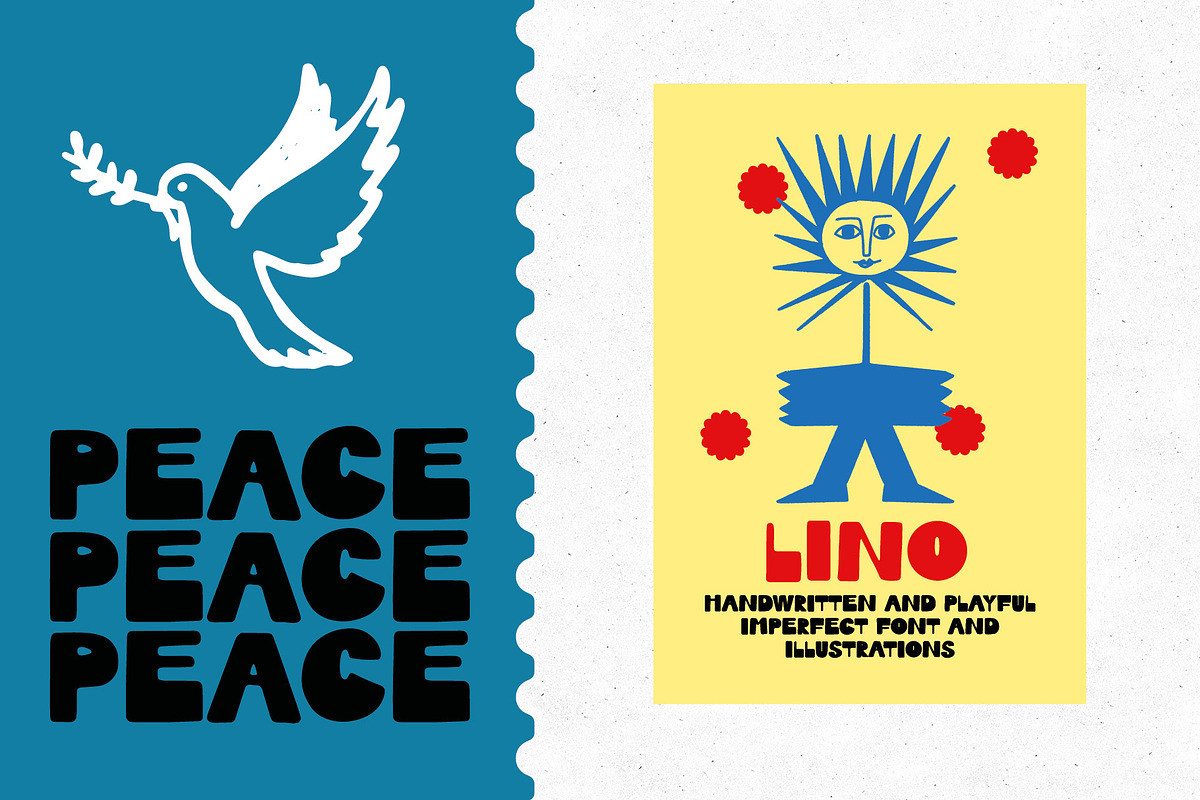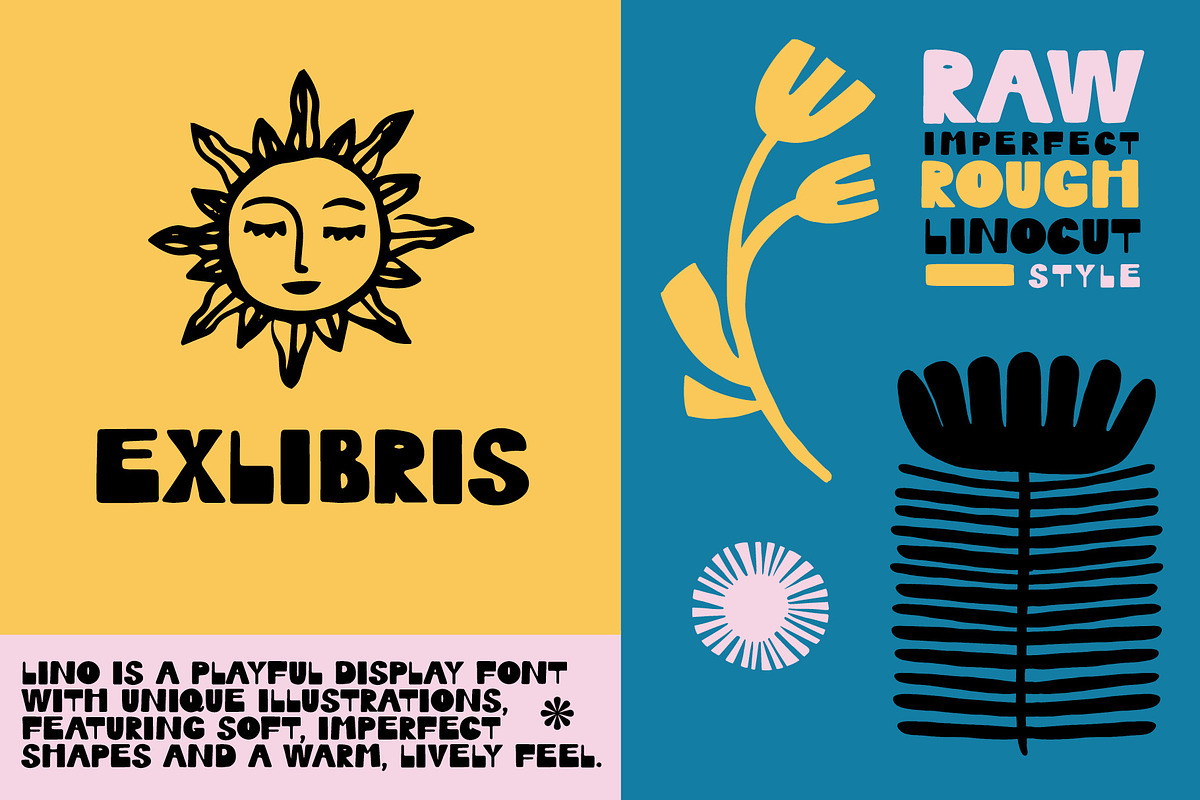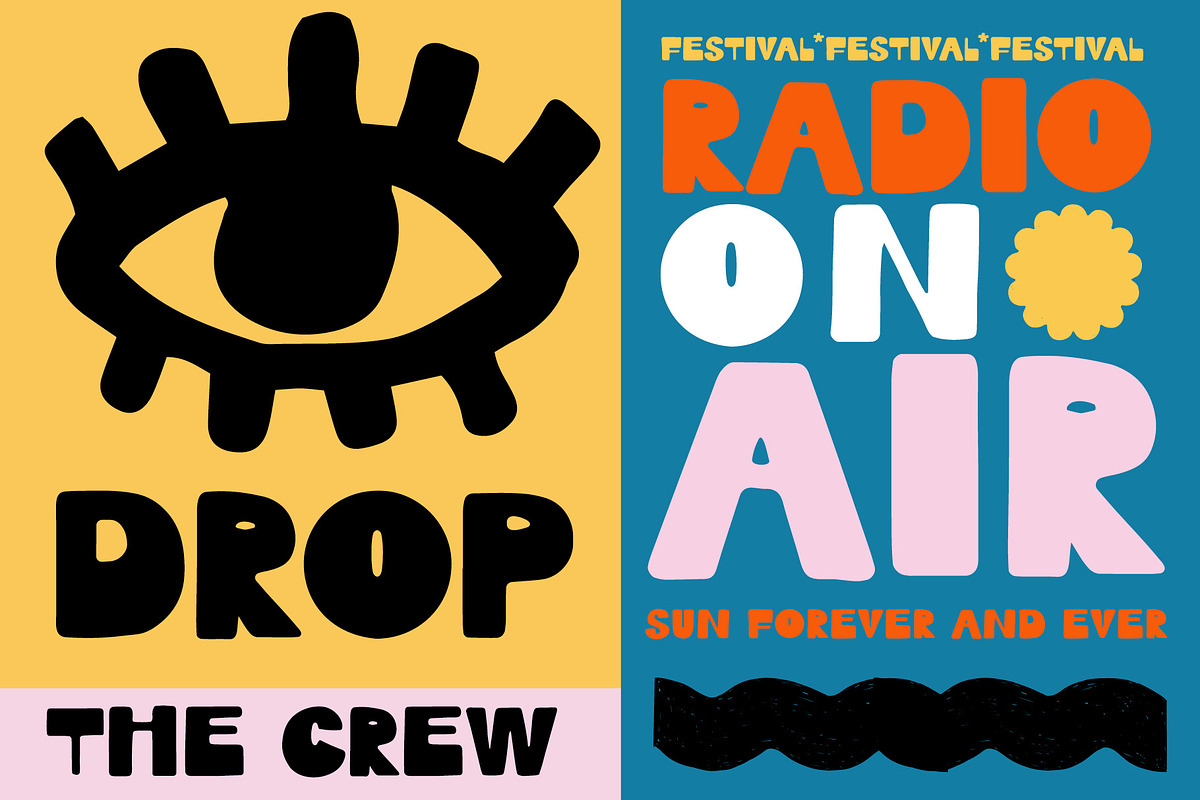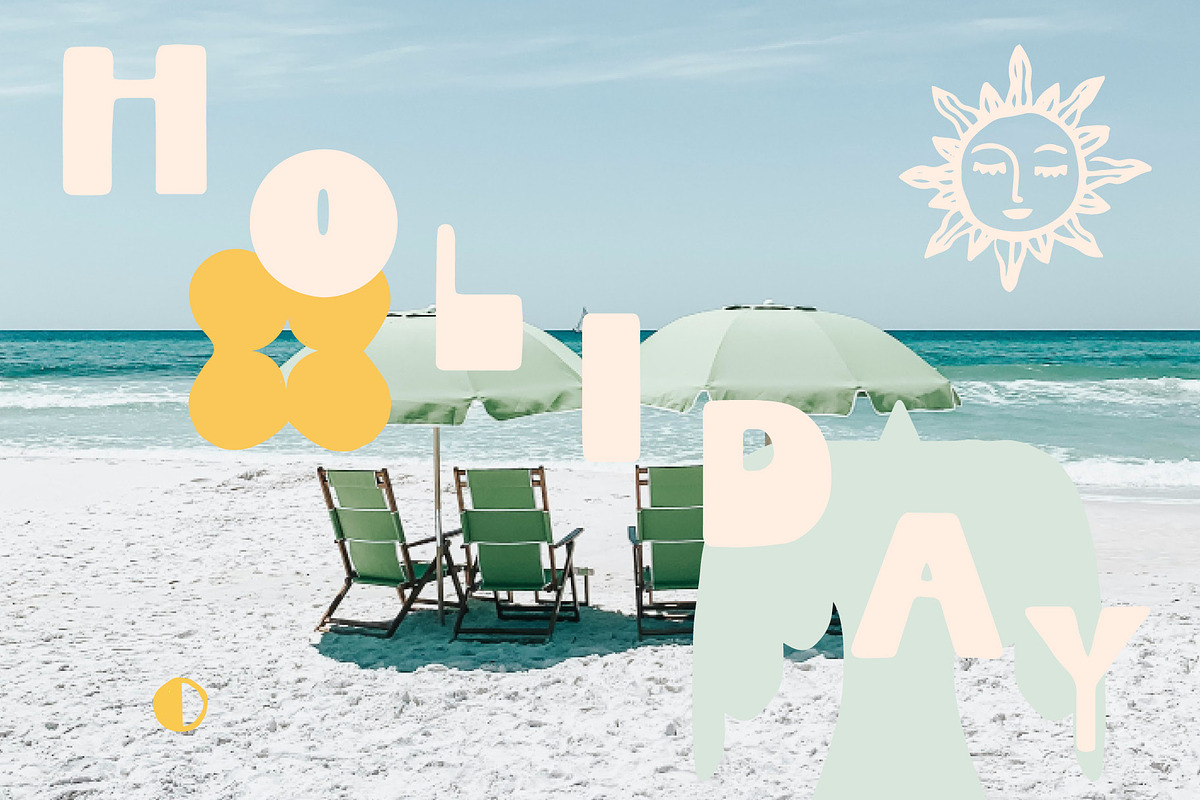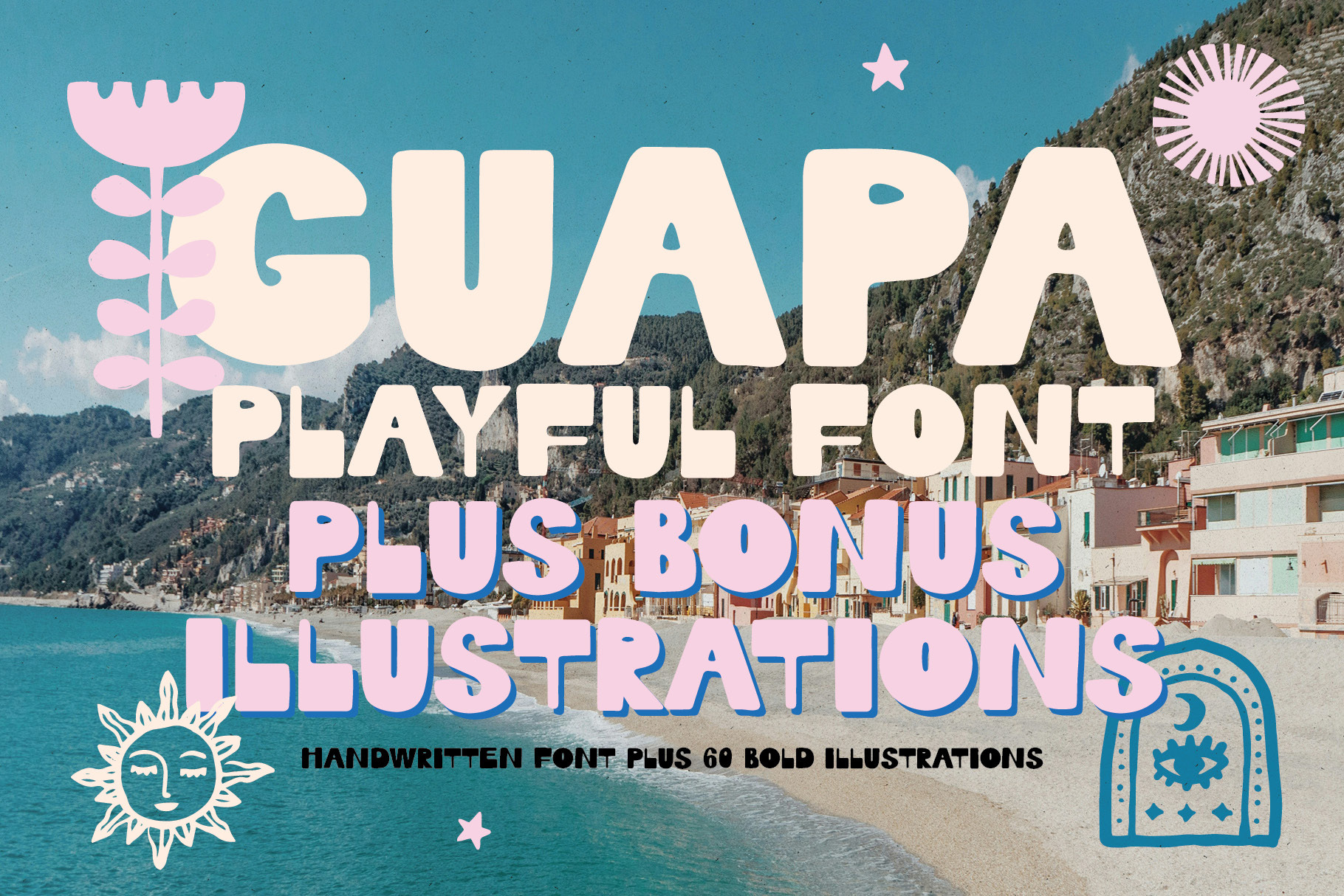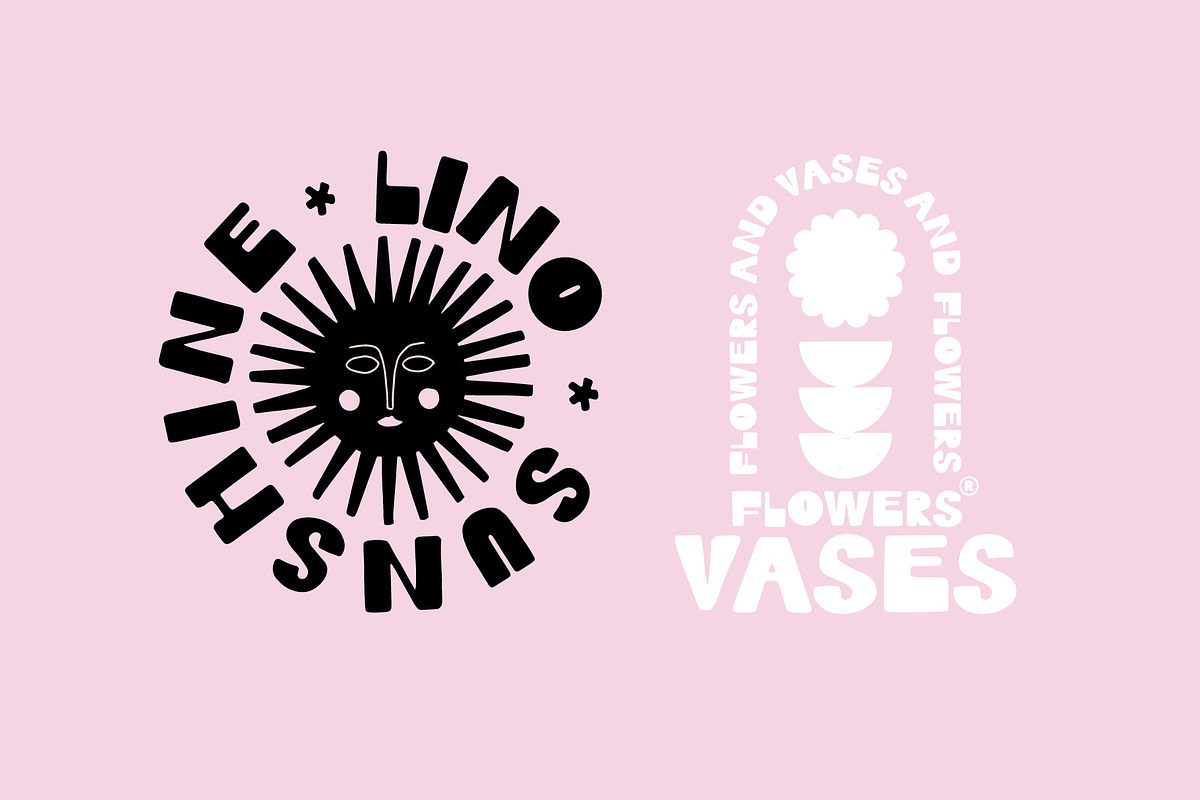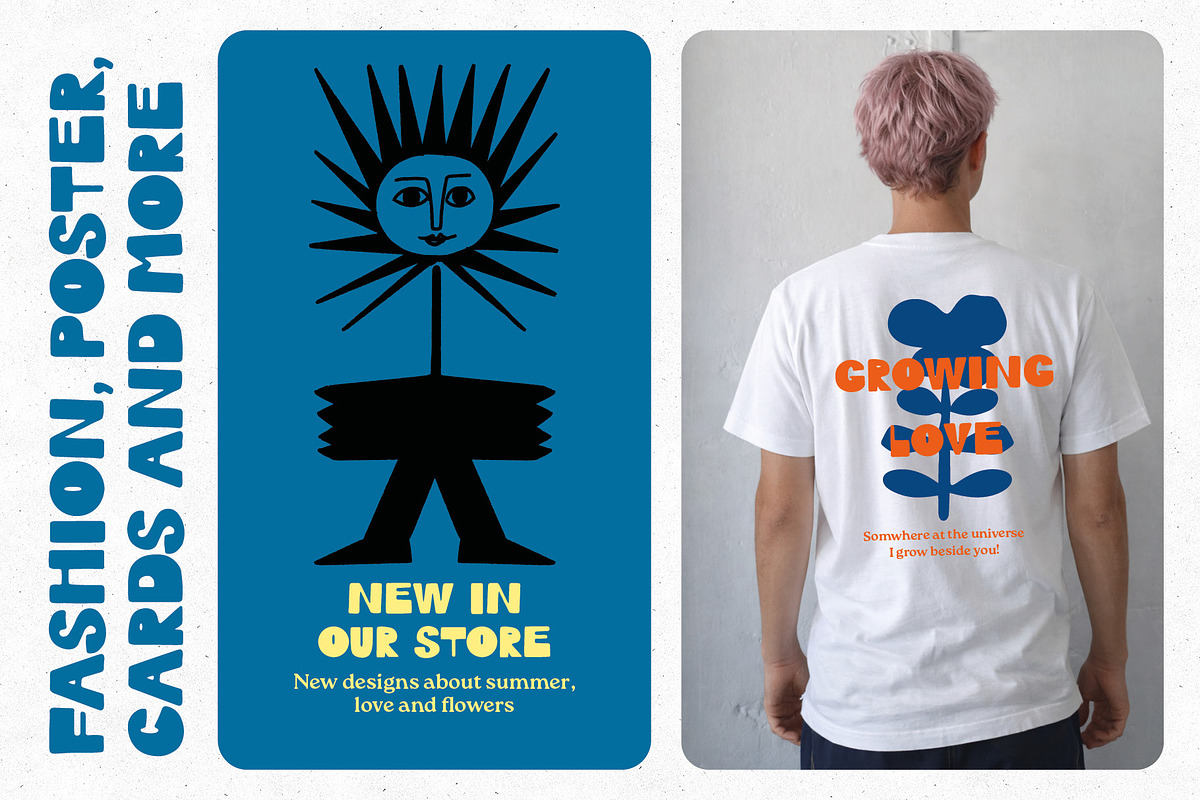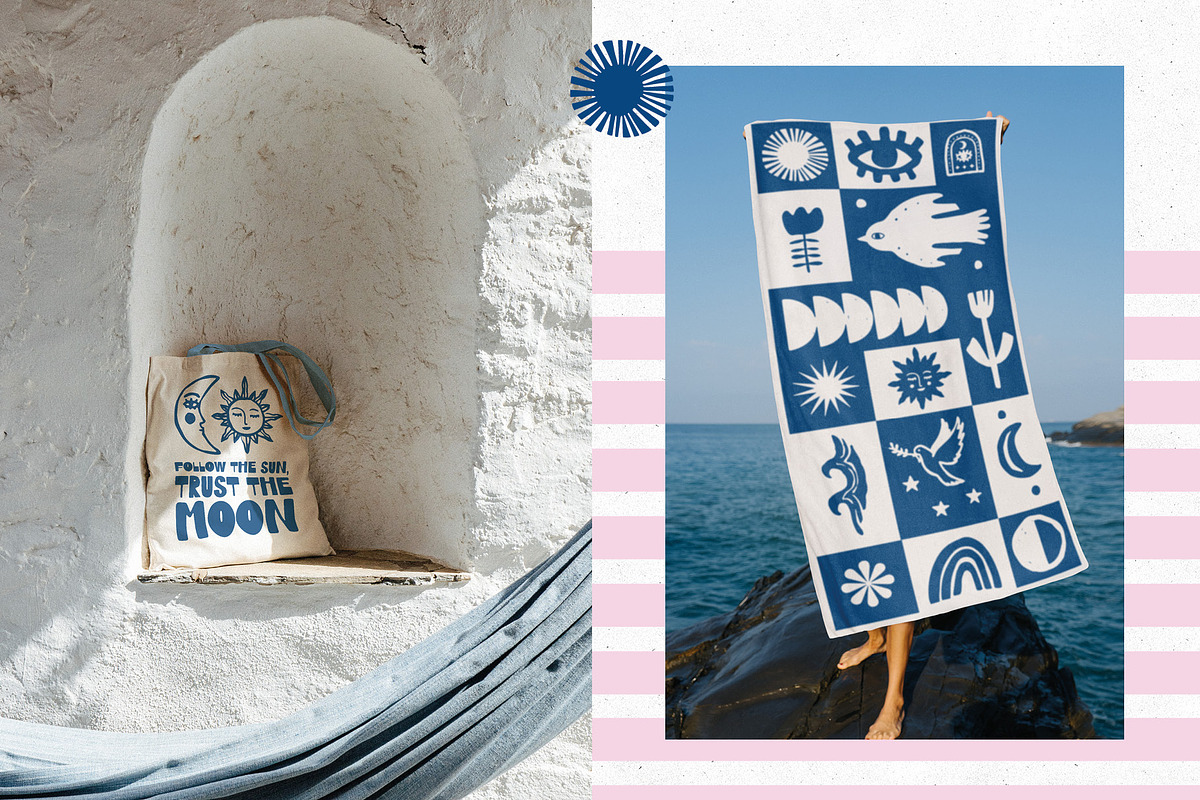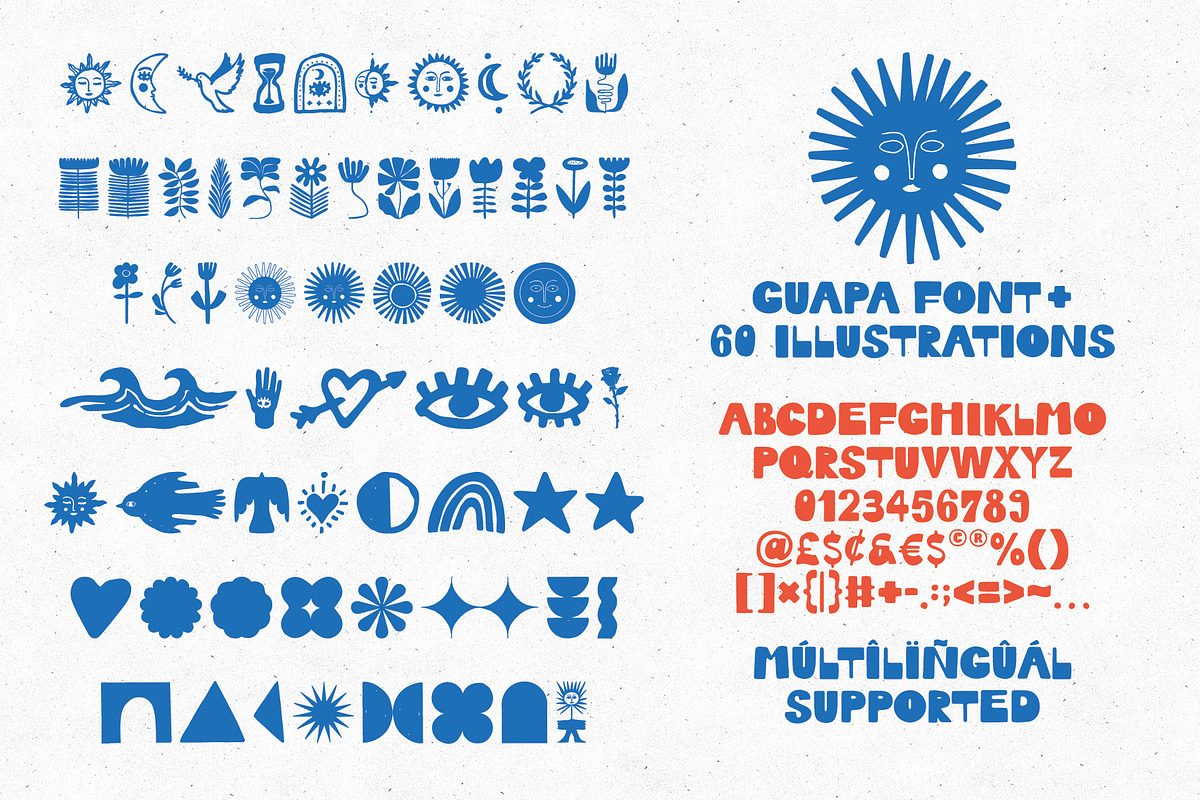
Guapa. Handwritten Font Kit
GUAPA is a playful and bold handwritten display font paired with a unique set of 60 handcrafted illustrations, designed to bring warmth, creativity and a Mediterranean summer vibe to your projects. All characters and icons are drawn by hand.
Inspired by sun, sea, nature and imperfect lino-style shapes, GUAPA combines a strong, expressive font with a versatile collection of illustrations — perfect for creating eye-catching and authentic designs.
This font + illustration bundle works beautifully for branding, posters, packaging, social media, apparel, art prints, summer campaigns and creative layouts. With its soft, imperfect forms and handmade character, GUAPA adds a human, artistic and slightly retro touch while staying bold and highly impactful.
GUAPA is ideal for designers looking for a bold, playful and expressive display font combined with a unique illustration set — perfect for creating standout, modern and artistic designs with a warm and human touch.